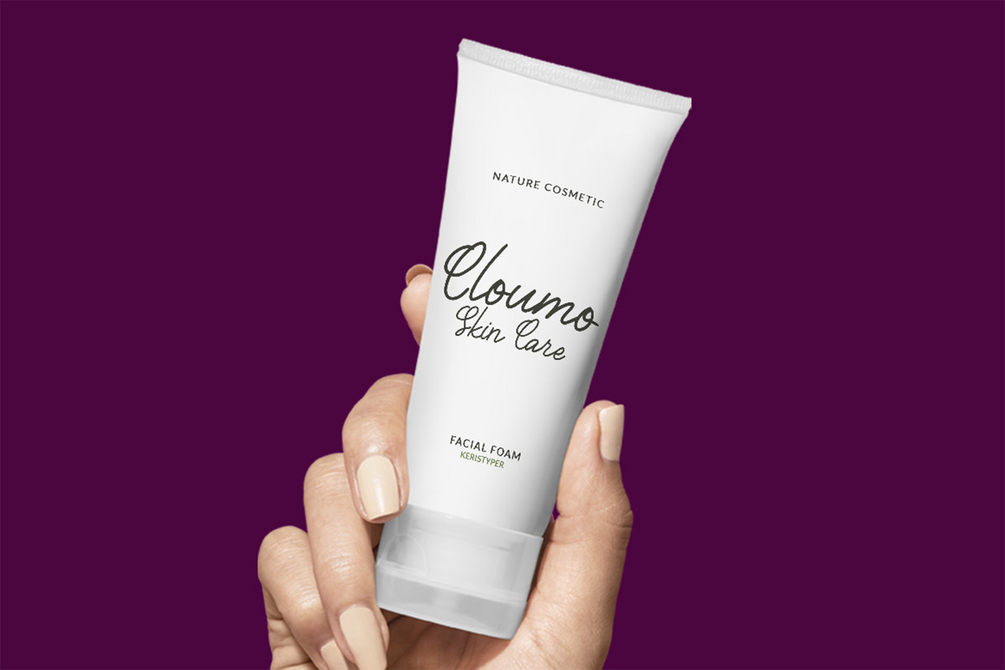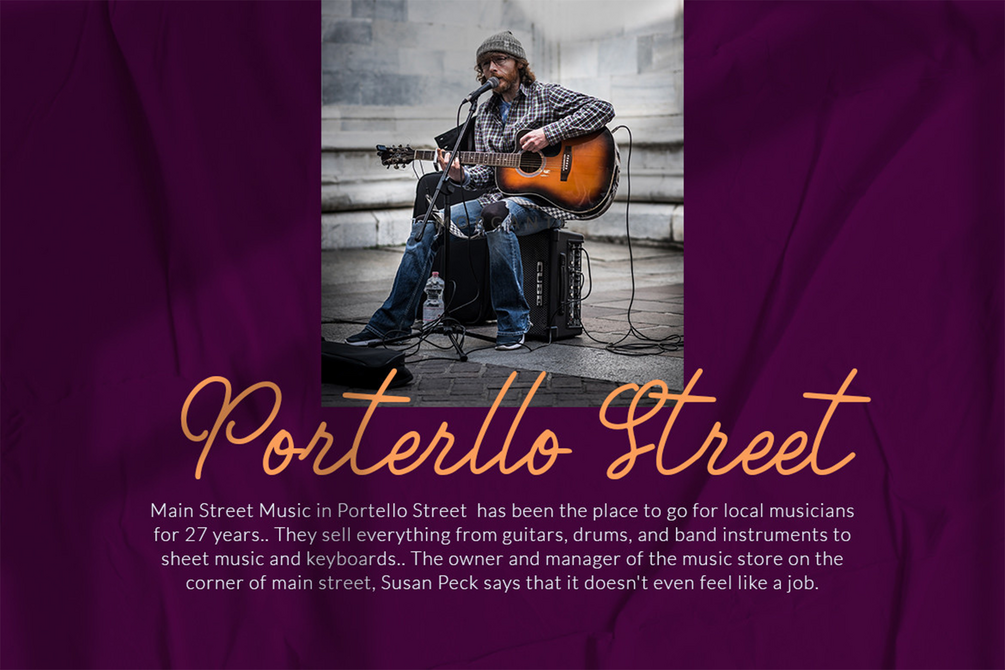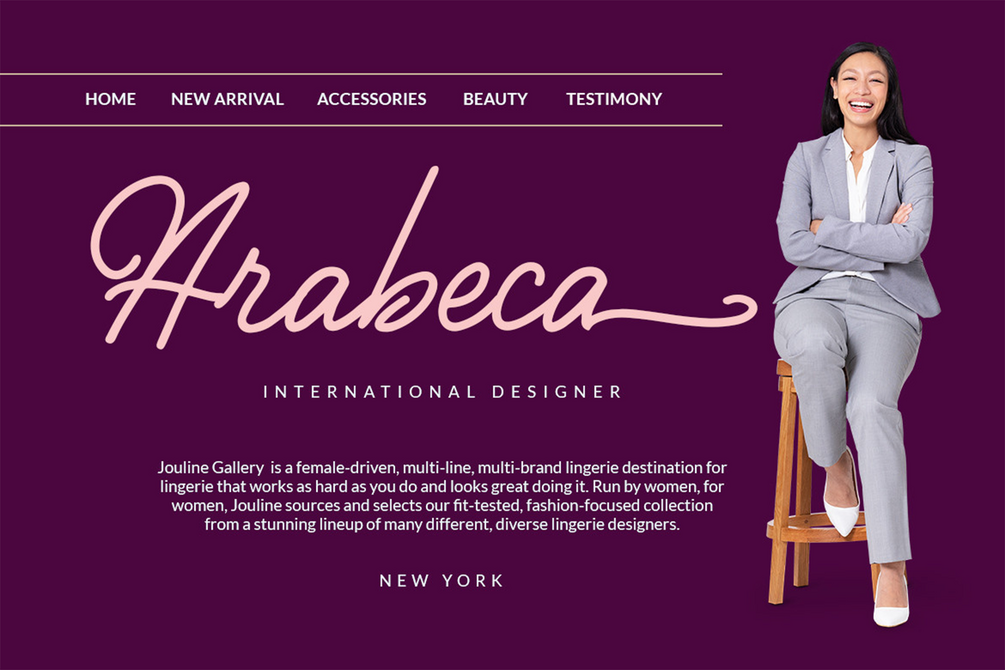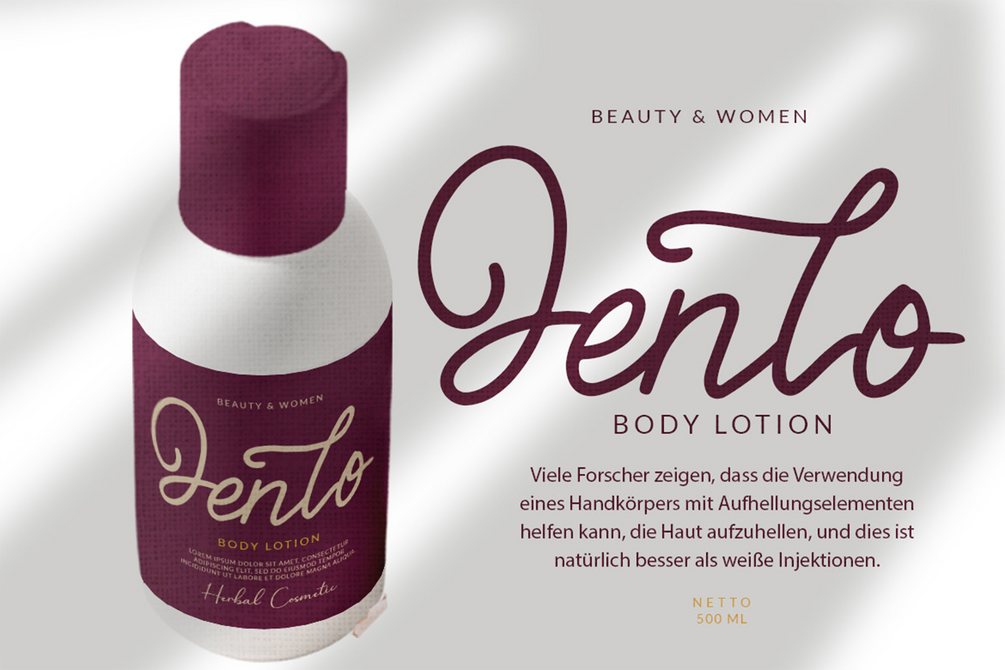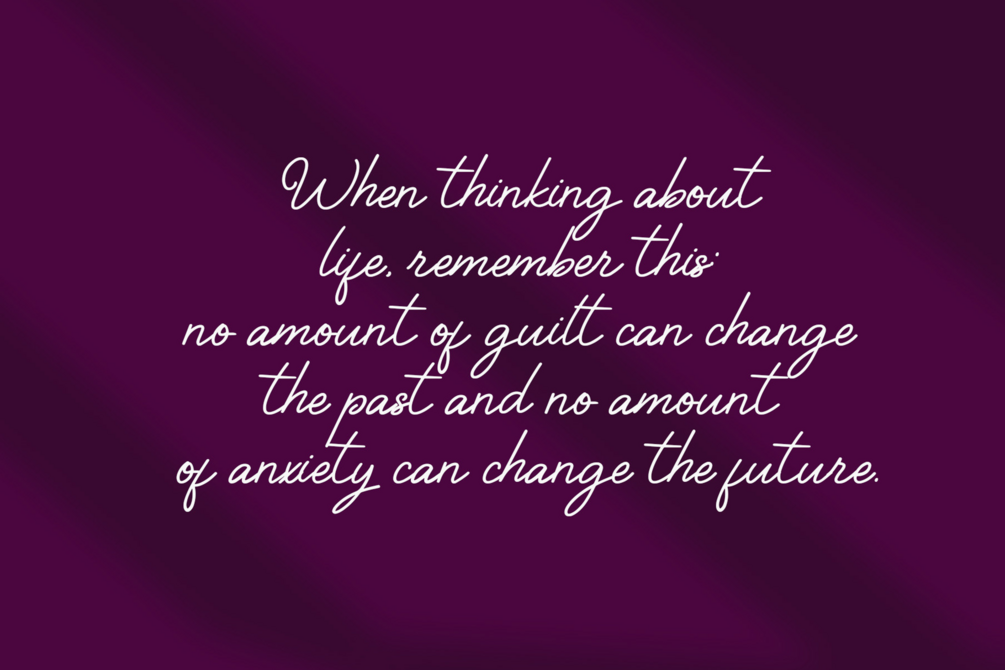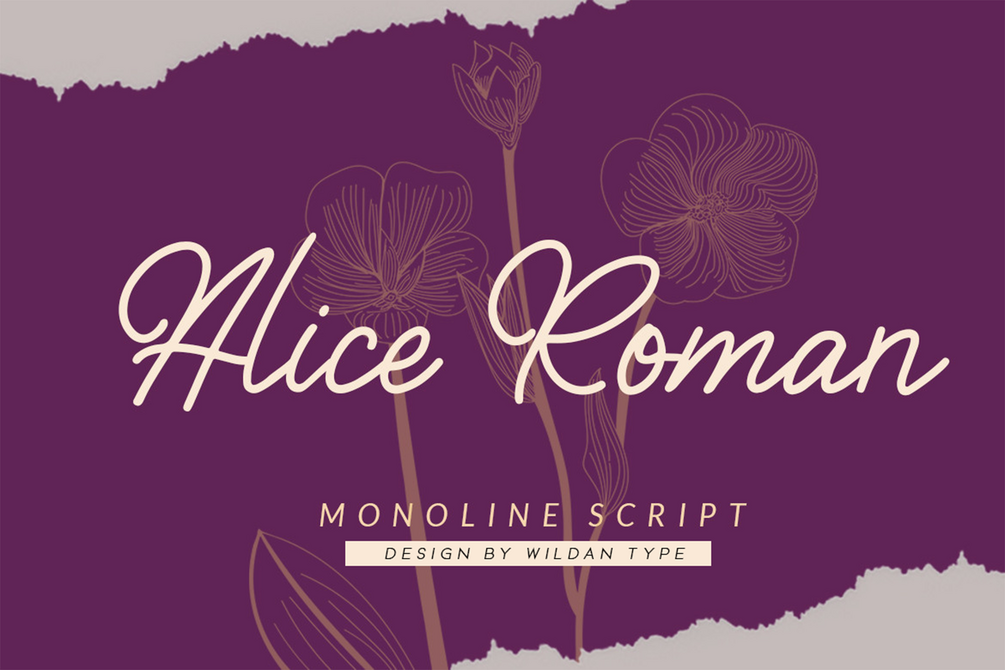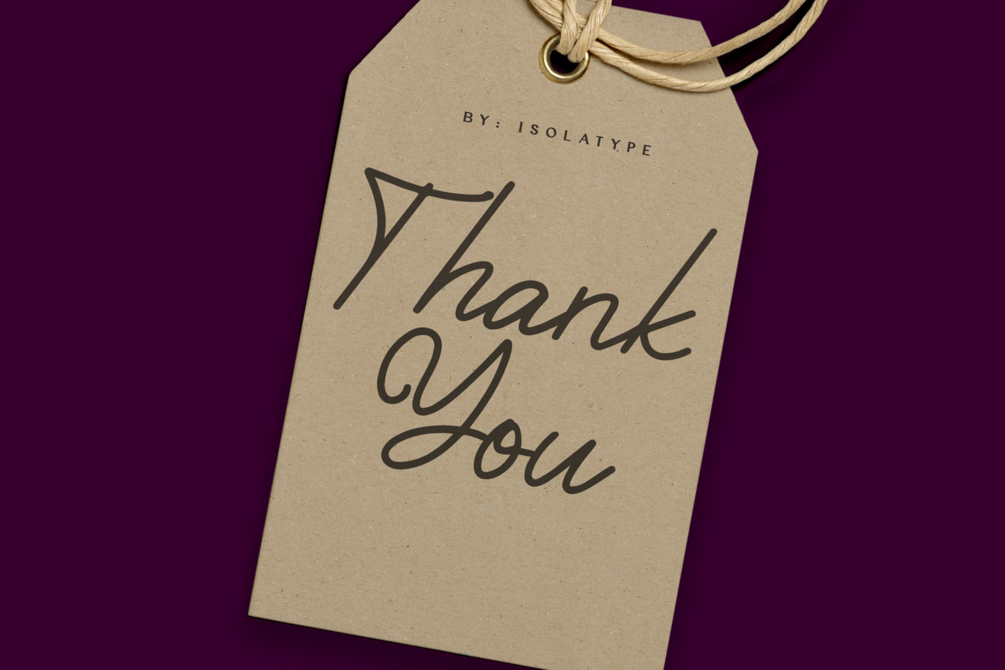
Alice Roman
Alice Roman is a beautiful script font. Fall for its ravishing style and use it to create gorgeous wedding invitations, beautiful stationary art, eye-catching social media posts, and much more! This font is PUA encoded which means you can access all of the glyphs and swashes with ease!